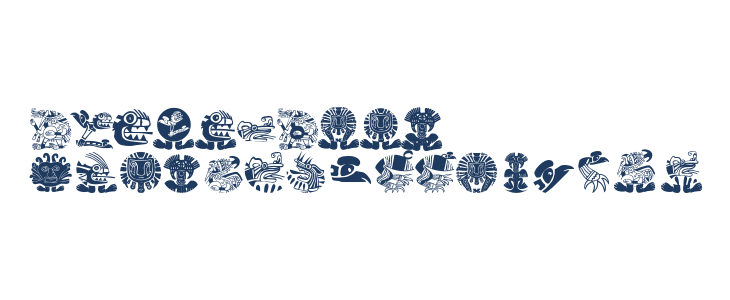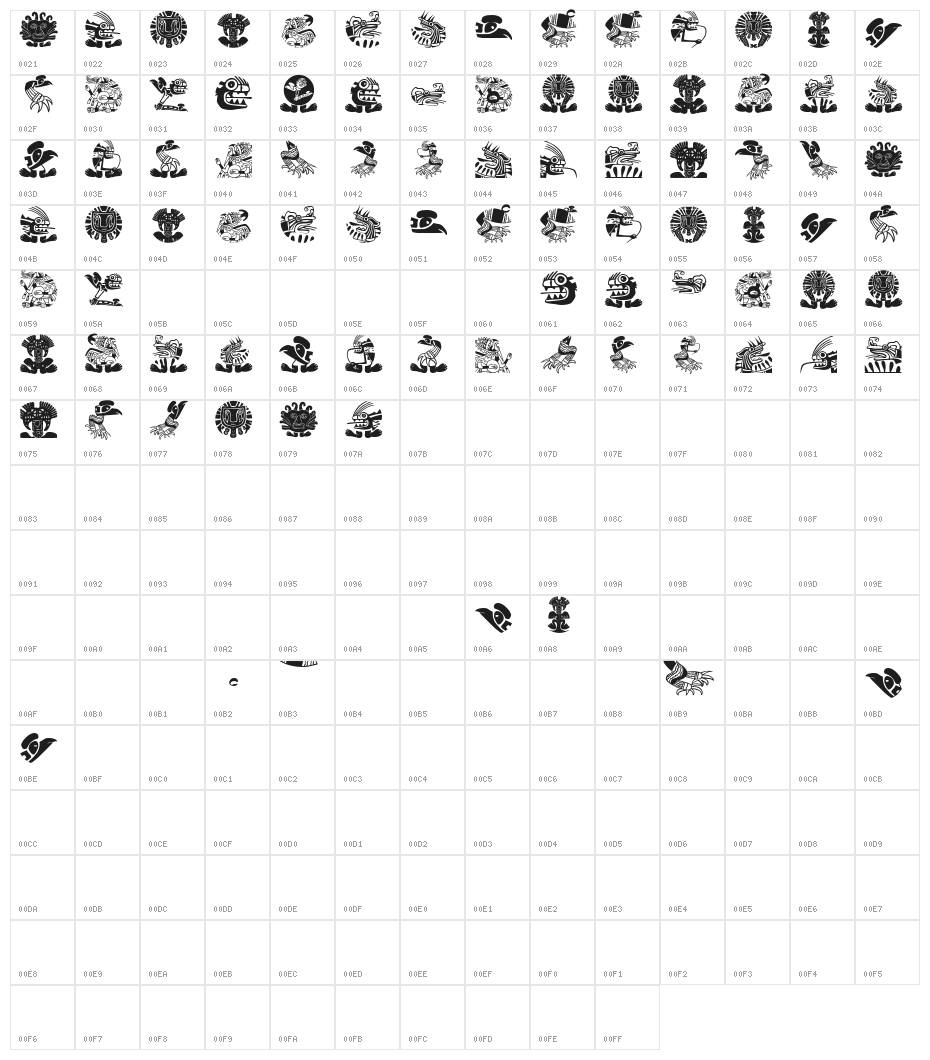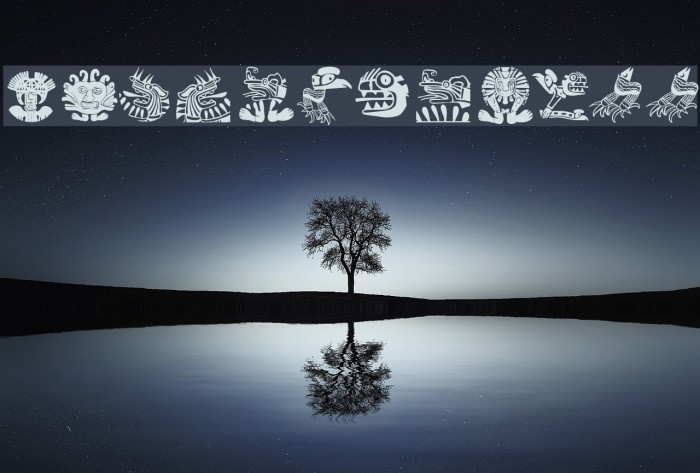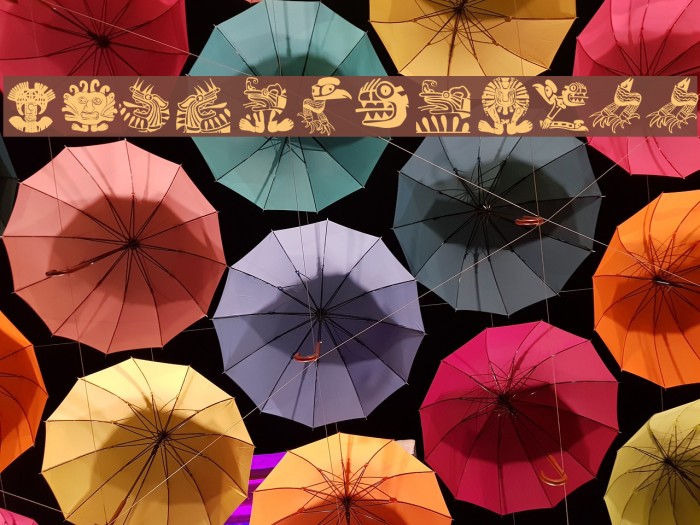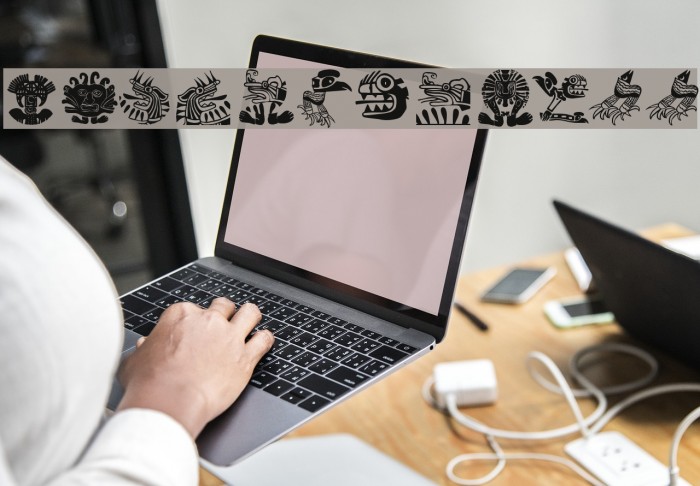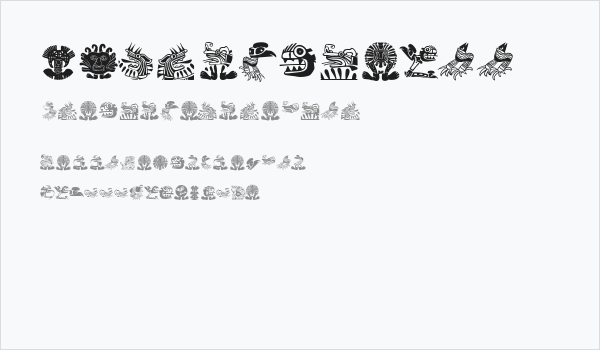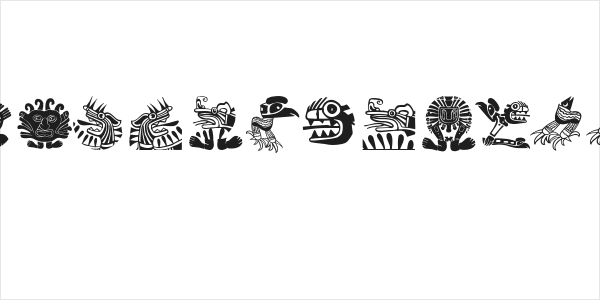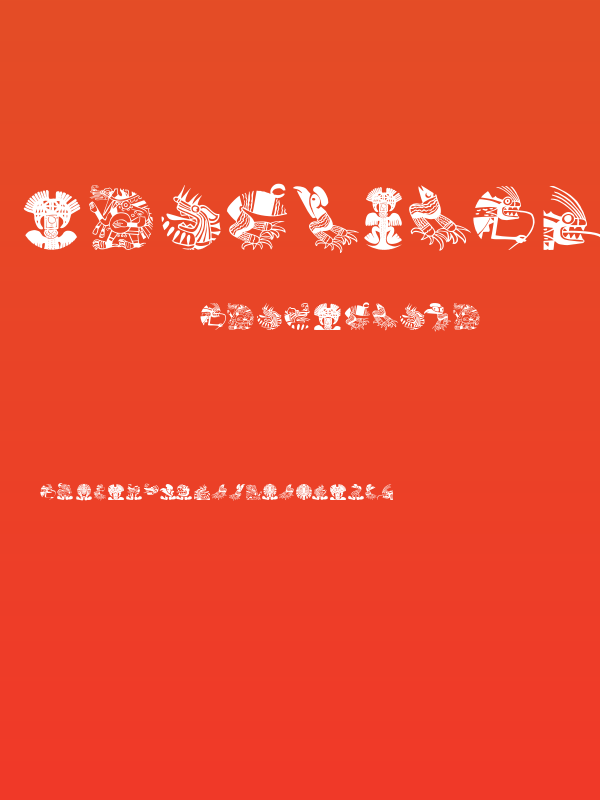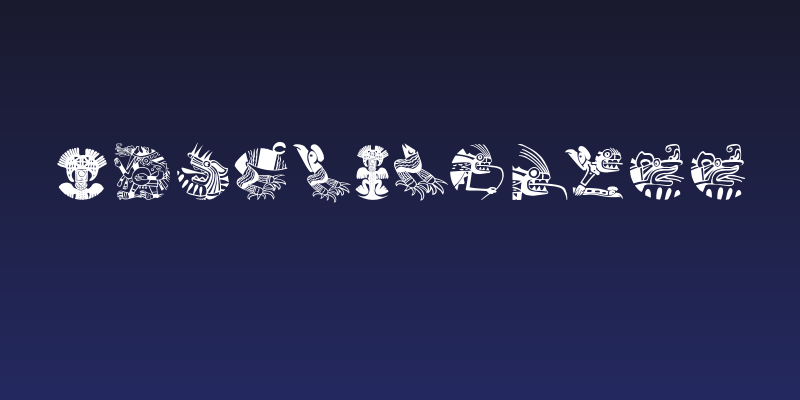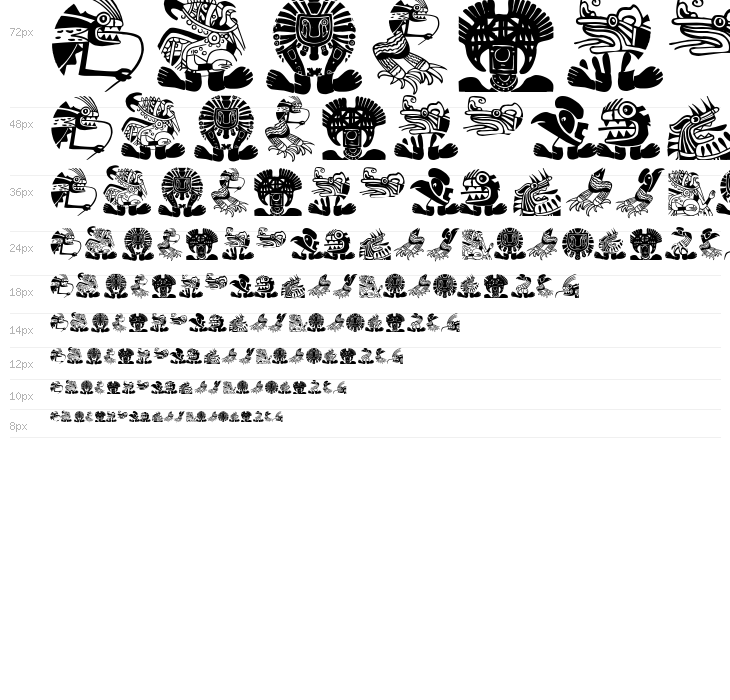
MyPrivateZoo Font
MyPrivateZoo Description
This font features a series of intricate, decorative glyphs that resemble abstract animal and mythical creature designs. Each character is uniquely crafted, showcasing a blend of geometric and organic shapes. The style is reminiscent of ancient tribal art, with bold lines and detailed patterns that create a sense of movement and life. The characters are highly stylized, making them more suitable for artistic or thematic projects rather than traditional text. The font's complexity and visual interest make it a standout choice for projects that require a unique and eye-catching aesthetic.
| Use Case | Logos, Posters, Artistic Projects |
| Proposed Projects | Ideal for artistic projects, themed event posters, unique branding, or any design requiring a bold, decorative touch. |